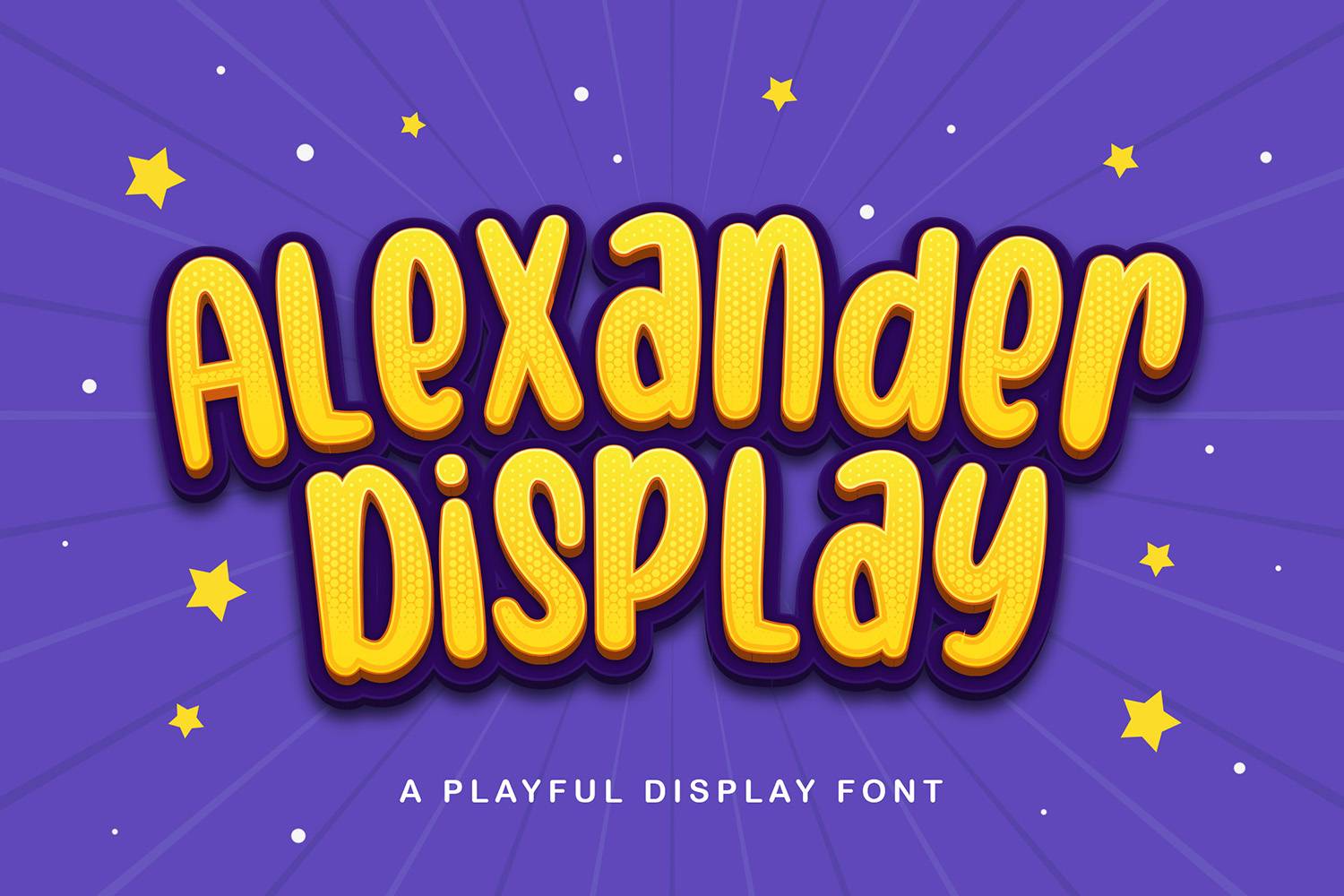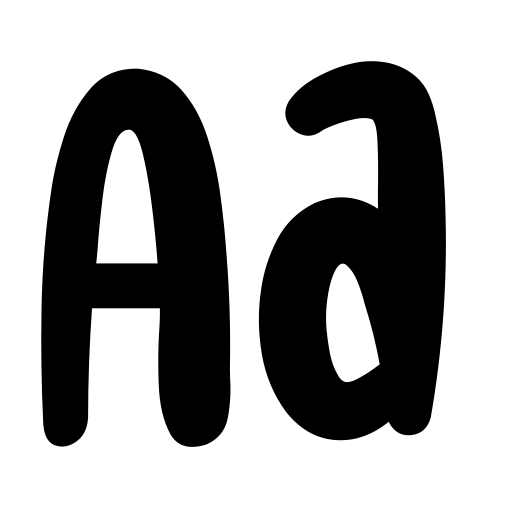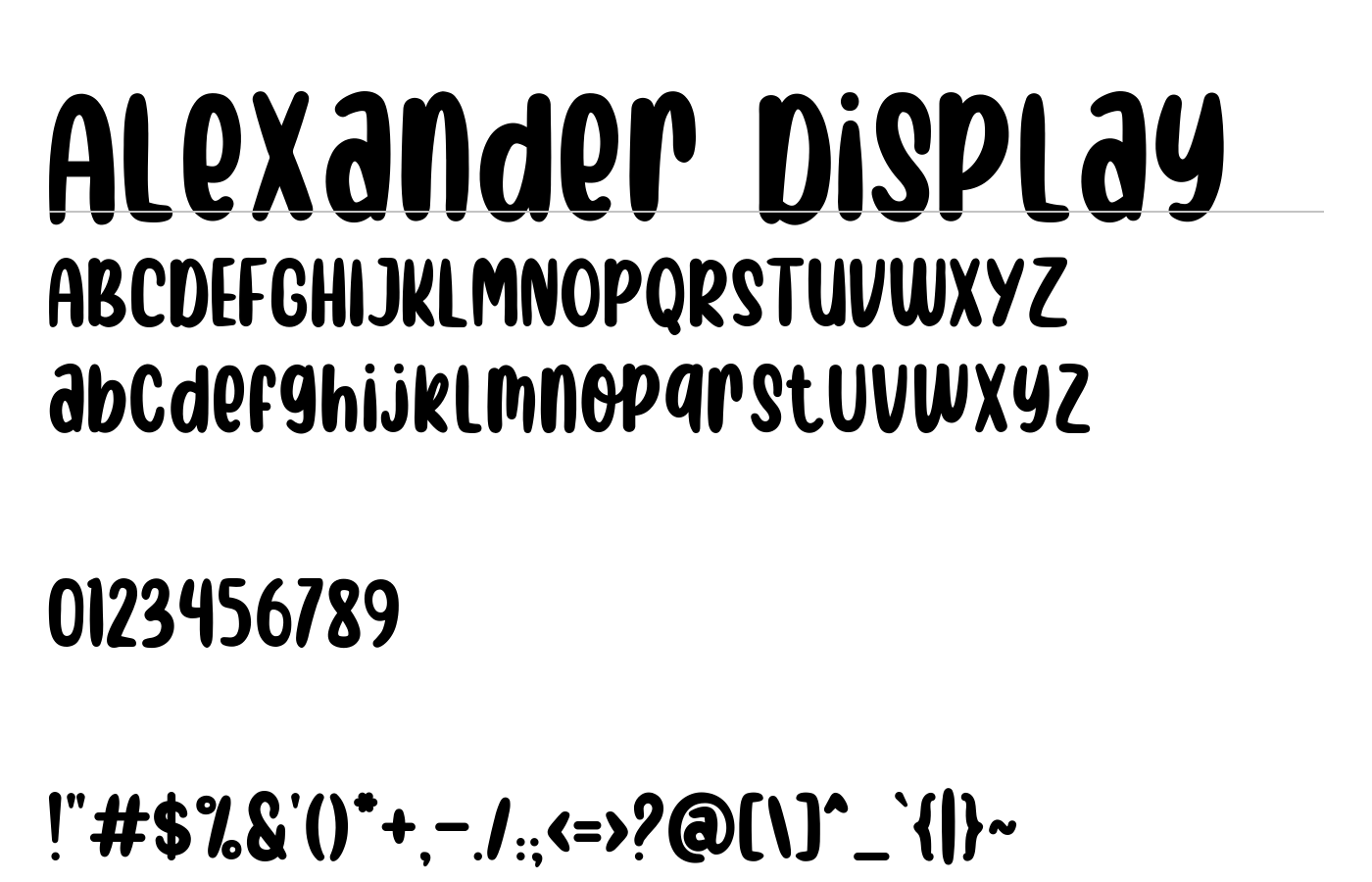
Alexander Display is a playful, rounded sans serif font with a tall x-height and a chunky, hand-drawn feel. It has lively, irregular letterforms that make it ideal for fun, casual designs such as children’s books, posters, and branding that wants to convey friendliness and approachability. Its bold, informal style works best in headlines and display contexts where personality and uniqueness are key.
Alexander Display Font
About Alexander Display Font